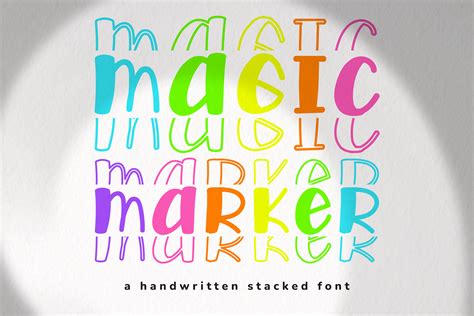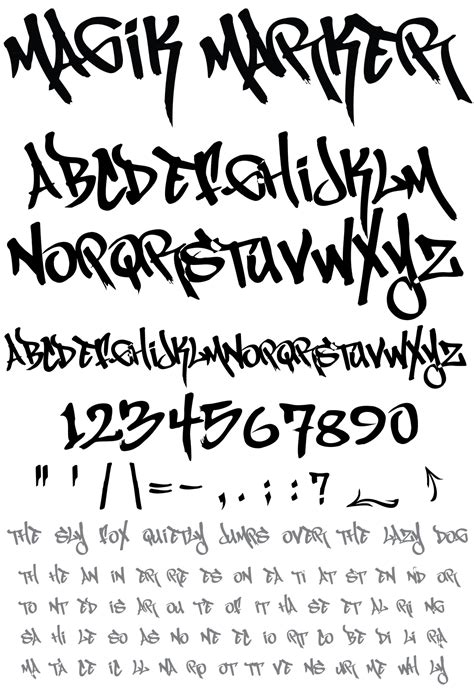
In the world of digital design and typography, the quest for unique and eye-catching fonts is never-ending. One font that has gained significant attention is the Magic Marker Font. This font is inspired by the playful and whimsical style of hand-drawn letters, reminiscent of those created with a magic marker. Its distinctive, bold, and slightly irregular strokes make it a favorite among designers looking to add a personal touch to their projects.
What is the Magic Marker Font?
The Magic Marker Font is a typeface that mimics the look of letters drawn with a magic marker. It is characterized by its thick, uneven lines and a slightly messy, hand-drawn appearance. This font is perfect for projects that require a casual, fun, and creative vibe. Whether you're designing a poster, a logo, or a social media graphic, the Magic Marker Font can add a unique and memorable touch.
History and Inspiration
The inspiration behind the Magic Marker Font comes from the classic art of hand-lettering. Artists and designers have long used markers to create bold, expressive letters that stand out. The font captures this essence, making it a versatile choice for various design projects. The history of hand-lettering dates back to ancient times, but it gained popularity in the mid-20th century with the rise of graffiti and street art. The Magic Marker Font pays homage to this rich tradition while offering a modern, digital twist.
Characteristics of the Magic Marker Font
The Magic Marker Font has several distinctive characteristics that set it apart from other fonts:
- Thick, Uneven Lines: The font features thick, uneven lines that mimic the look of a marker. This gives it a hand-drawn, organic feel.
- Bold and Expressive: The letters are bold and expressive, making them stand out in any design. This makes the font ideal for headlines and titles.
- Slightly Irregular: The slight irregularities in the letters add to the font's charm. It looks like it was drawn by hand, giving it a personal touch.
- Versatile: Despite its unique style, the Magic Marker Font is versatile and can be used in a variety of projects, from casual to professional.
How to Use the Magic Marker Font
Design Ideas with the Magic Marker Font
The Magic Marker Font is incredibly versatile and can be used in a variety of design projects. Here are some ideas to inspire you:
Posters and Flyers
Use the Magic Marker Font for headlines and key messages on posters and flyers. Its bold and expressive style will grab attention and make your design stand out.
Logos and Branding
For brands that want a casual, fun, and creative image, the Magic Marker Font is an excellent choice. It can be used in logos, branding materials, and promotional items.
Social Media Graphics
Create eye-catching social media graphics with the Magic Marker Font. Its unique style will help your posts stand out in a crowded feed.
Invitations and Greeting Cards
Add a personal touch to invitations and greeting cards with the Magic Marker Font. Its hand-drawn appearance makes it perfect for special occasions.
Comparing Magic Marker Font with Other Hand-Drawn Fonts
While the Magic Marker Font is unique, there are other hand-drawn fonts that offer similar styles. Here is a comparison to help you understand the differences:
| Font Name | Style | Use Cases |
|---|---|---|
| Magic Marker Font | Bold, expressive, slightly irregular | Posters, logos, social media graphics |
| Permanent Marker | Thick, bold, uniform | Headlines, titles, casual designs |
| Hand-Drawn Font | Light, delicate, varied | Invitations, greeting cards, personal projects |
Each of these fonts has its own unique characteristics and use cases. The Magic Marker Font stands out for its bold and expressive style, making it ideal for projects that require a strong visual impact.
Tips for Enhancing Your Designs with Magic Marker Font